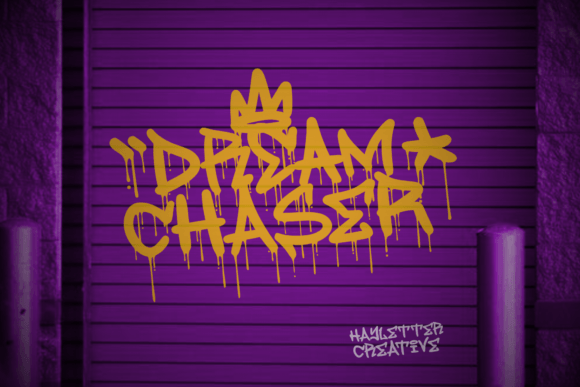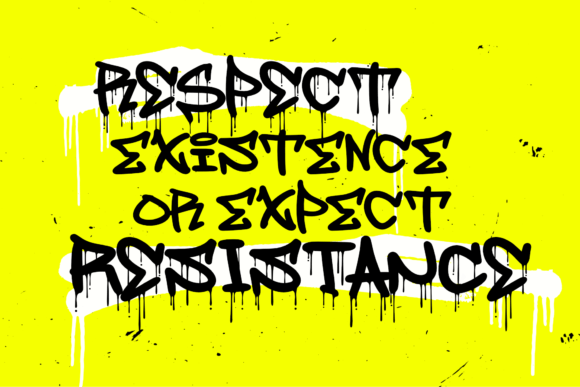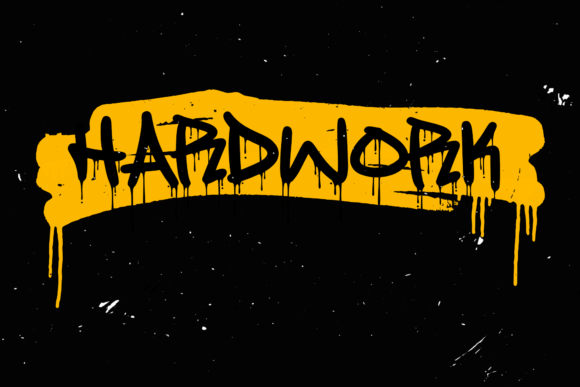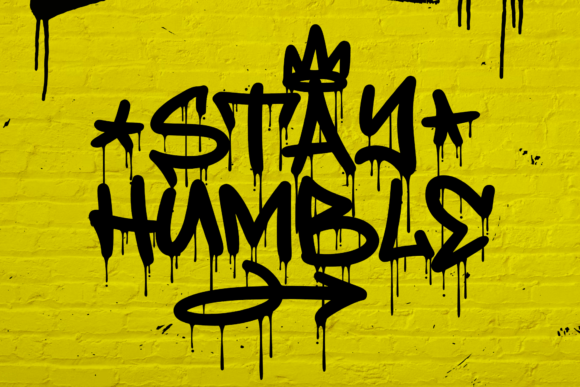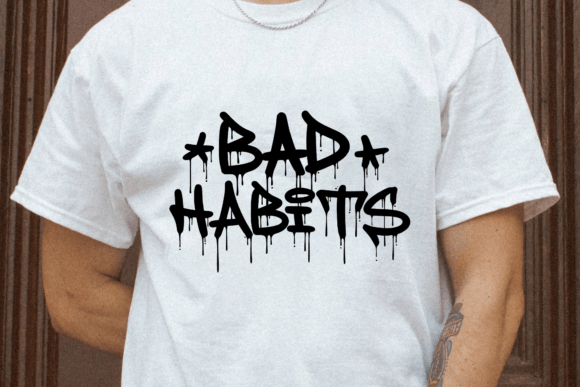
Drips Kings Font: Elevate Your Designs with a Cool Street-Styled Display Font
Are you a designer or crafter looking for a font that can add a touch of edginess and coolness to your creations? Look no further than Drips Kings Font. This street-styled display font is inspired by graffiti art and features a unique dripped style that is sure to make your designs stand out. In this article, we’ll take a closer look at Drips Kings Font and explore its features, benefits, and uses.
What is Drips Kings Font?
Drips Kings Font is a display font that is designed to resemble graffiti art. It features a bold, dripped style that gives it a unique and eye-catching look. The font is perfect for designers and crafters who want to add a touch of street style to their creations. Whether you’re working on a logo, poster, or social media graphic, Drips Kings Font is sure to make a statement.
Features of Drips Kings Font
Drips Kings Font has several features that make it an excellent choice for designers and crafters. Some of its key features include:
- Unique Dripped Style: The font’s dripped style gives it a distinctive look that is sure to grab attention.
- Street-Styled: The font is inspired by graffiti art and has a bold, street-styled look that is perfect for designs that require an edgy touch.
- Display Font: Drips Kings Font is a display font, making it perfect for headlines, titles, and other large text elements.
Benefits of Using Drips Kings Font
There are several benefits to using Drips Kings Font in your designs. Some of the benefits include:
- Adds Edginess: The font’s unique dripped style adds an edgy touch to your designs, making them stand out from the crowd.
- Increases Visibility: The font’s bold, street-styled look makes it easy to read and increases visibility, even from a distance.
- Versatile: Drips Kings Font can be used for a wide range of designs, from logos and posters to social media graphics and more.
- Time-Saving: The font is easy to use and doesn’t require a lot of design expertise, saving you time and effort.
Uses of Drips Kings Font
Drips Kings Font can be used for a wide range of designs, including:
- Logos: The font’s bold, street-styled look makes it perfect for logos that require an edgy touch.
- Posters: Drips Kings Font is perfect for posters that require a bold, eye-catching headline.
- Social Media Graphics: The font’s unique dripped style makes it perfect for social media graphics that require a cool, street-styled look.
- Headlines: Drips Kings Font is perfect for headlines and titles that require a bold, eye-catching font.
Tips for Using Drips Kings Font
Here are some tips for using Drips Kings Font in your designs:
- Use it Sparingly: Drips Kings Font is a bold font, so it’s best to use it sparingly to avoid overwhelming your design.
- Pair it with Other Fonts: The font pairs well with other fonts, so feel free to experiment with different font combinations.
- Experiment with Colors: Drips Kings Font looks great in a variety of colors, so don’t be afraid to experiment with different color schemes.
Drips Kings Font is a cool street-styled display font with a unique dripped style that is inspired by graffiti art. Its bold, eye-catching look makes it perfect for designers and crafters who want to add an edgy touch to their creations. With its ease of use, versatility, and bold look, Drips Kings Font is sure to elevate any design. Whether you’re working on a logo, poster, or social media graphic, Drips Kings Font is an excellent choice.